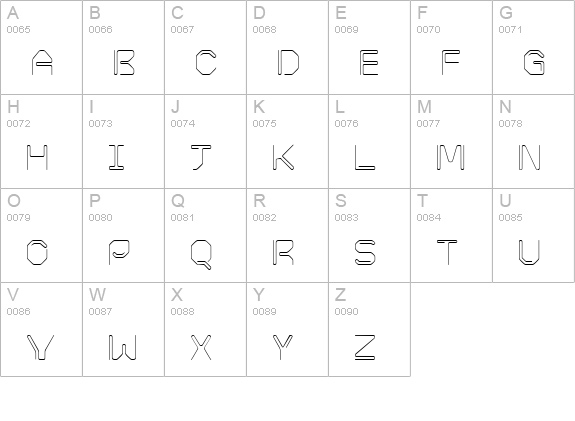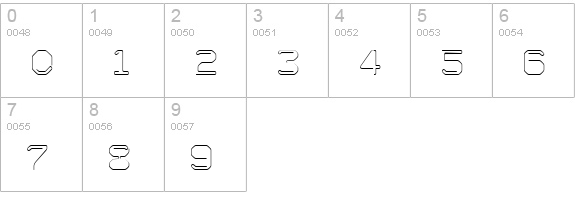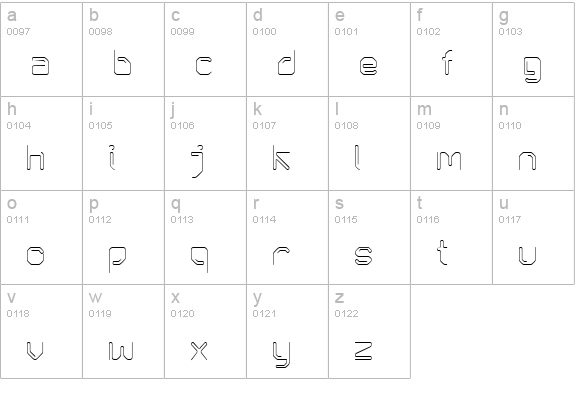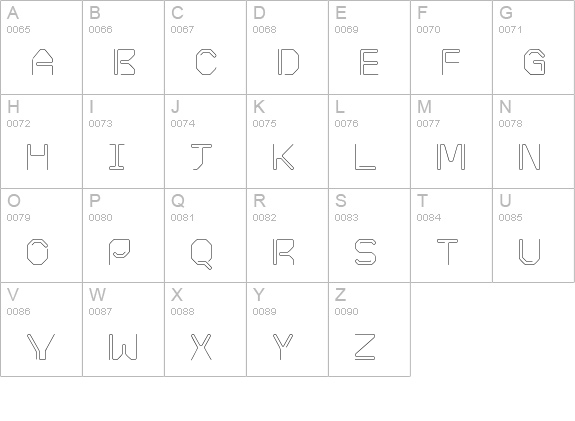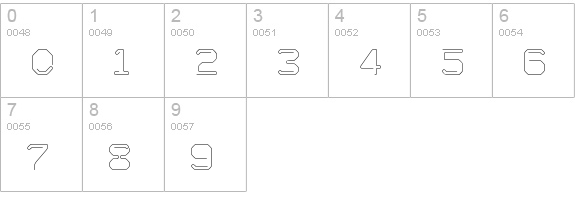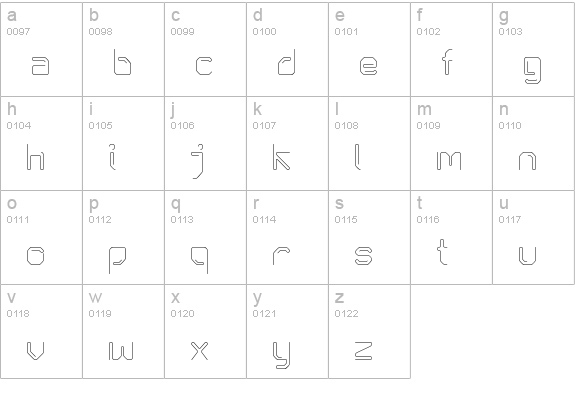
KneeonLight Font Details
Introducing KneeonLight: a captivating and versatile font that will illuminate your designs with its modern and stylish appeal. This font is the perfect fusion of elegance and creativity, making it an excellent choice for a wide range of projects. With its clean and sleek lines, KneeonLight exudes a sense of sophistication that is sure to leave a lasting impression. Whether you're designing a logo, creating eye-catching headlines, or crafting stunning invitations, this font will effortlessly elevate your work to new heights. One of the most remarkable aspects of KneeonLight is that it is completely free! Yes, you read that right - this exceptional font can be downloaded at absolutely no cost. FontsMarket.com is proud to offer this font as a free download, ensuring that everyone can enjoy its beauty and versatility. Designed with utmost care and attention to detail, KneeonLight delivers exceptional legibility and clarity, making it a fantastic choice for both print and digital designs. Its balanced proportions and well-crafted letterforms guarantee a seamless reading experience, while its unique personality adds a touch of individuality to any project. Whether you're a professional designer or a passionate enthusiast, KneeonLight is an invaluable addition to your font collection. Its versatility allows it to adapt to various design styles, ensuring that it can complement any concept or aesthetic effortlessly. So why wait? Discover the limitless possibilities that KneeonLight offers and set your designs aglow. Download this exceptional font for free at FontsMarket.com and unlock a world of creative opportunities. With KneeonLight, your designs will shine brighter than ever before.